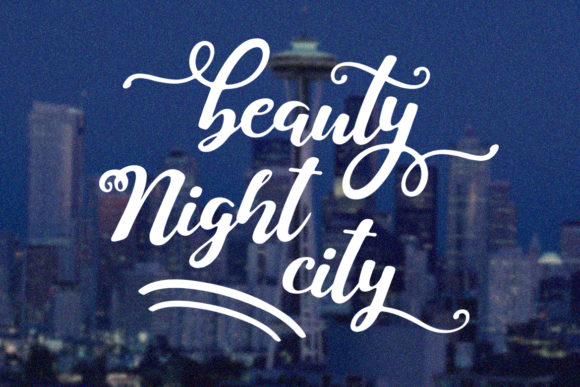
Freebie Wednesday: Emily Diana Font
Emily Diana is an equally adorable and elegant handwritten font. It’s free at Creative Fabrica for another 5 days so you better make sure you don’t miss out!